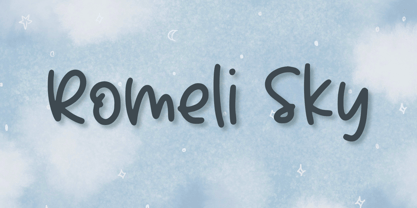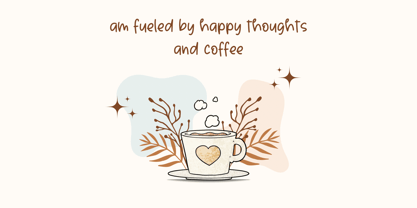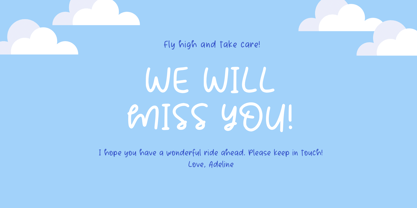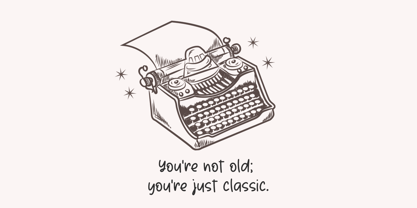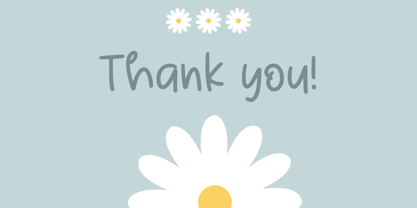
Romeli Sky
by Aisyah
The Romeli Sky Font Family was designed by Nur Aiysah Amalia and published by Aisyah. Romeli Sky contains 1 styles.
Discover the charming allure of Romely Sky, a delightfully whimsical handwriting-inspired font. Perfectly attuned to the needs of personal notes or ingenious creative undertakings, Romely Sky beautifully captures the fluid character of natural handwriting yet showcases an irresistible lovable quality. Dive into the world of personal expression and artistic allure with the lovely nuances of Romely Sky.
Designers: Nur Aiysah Amalia
Publisher: Aisyah
Foundry: Aisyah
Design Owner: Aisyah
Romeli Sky